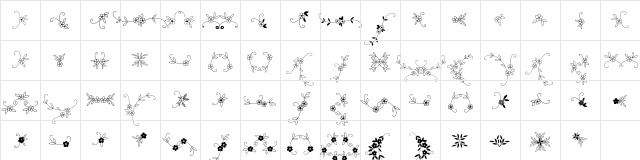
Menina Graciosa Ornaments Two Regular
| Foundry | Iza W, Intellecta Design |
Design Context for Menina Graciosa Ornaments Two Typeface
Menina Graciosa Ornaments Two is built around its visual character rather than neutral utility — its distinctive forms are designed to make an impression at display sizes.
Font Pairing: Pair with a clean neutral sans-serif for body copy to let Menina Graciosa Ornaments Two's character lead without overwhelming the composition.
Pro Tip: Treat Menina Graciosa Ornaments Two as the centrepiece of your typographic hierarchy. One strong heading set in a decorative face can carry an entire layout.